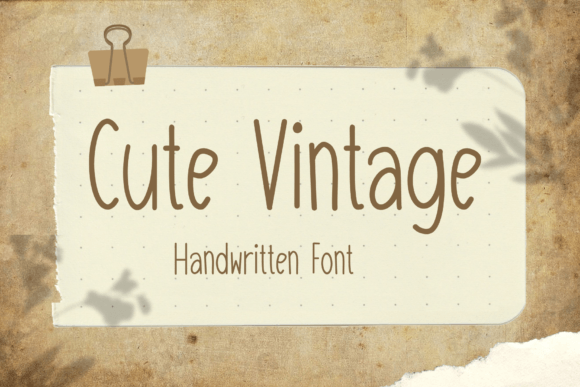
Cute Vintage Font: Adding a Touch of Whimsy to Your Designs
The Cute Vintage font is a delightful and charming handwritten display font that is perfect for adding a touch of sweetness and friendliness to your designs. This font is ideal for a wide range of creative projects, from crafts and digital design to presentations, wedding invitations, cards, and more. Its playful and fun style makes it an excellent choice for anyone looking to add a dash of whimsy to their work.
What is Cute Vintage Font?
Cute Vintage font is a carefully crafted handwritten display font that exudes a sense of nostalgia and playfulness. Its sweet and friendly style makes it perfect for designs that require a personal touch. The font features flowing lines, gentle curves, and a dash of elegance, making it suitable for a wide range of applications.
Key Features of Cute Vintage Font
- Handwritten style: Cute Vintage font boasts a beautiful handwritten style that is both elegant and playful.
- Sweet and friendly: The font’s sweet and friendly tone makes it perfect for designs that require a personal touch.
- Versatile: Cute Vintage font is highly versatile and can be used for a wide range of creative projects.
- Easy to read: The font is clear and easy to read, making it perfect for body text and headings.
Use Cases for Cute Vintage Font
Cute Vintage font is an incredibly versatile font that can be used for a wide range of creative projects. Here are some of the many use cases for this delightful font:
- Crafts: Cute Vintage font is perfect for craft projects, such as scrapbooking, card making, and DIY tutorials.
- Digital design: The font is ideal for digital designers who want to add a touch of whimsy to their work, such as social media graphics, blog posts, and website headers.
- Wedding invitations and cards: Cute Vintage font is a popular choice for wedding invitations, cards, and other stationery.
- Presentations: The font is perfect for presentations that require a touch of personality and whimsy.
- School projects: Cute Vintage font is an excellent choice for school projects, such as posters, presentations, and worksheets.
- Comic book style: The font’s playful style makes it perfect for comic book-style designs, such as graphic novels and cartoons.
- Game online: Cute Vintage font can be used to create engaging and playful online games.
- Love shirts: The font is ideal for designing love shirts, hoodies, and other apparel.
- Posters and movie titles: Cute Vintage font can be used to create eye-catching posters and movie titles.
Benefits of Using Cute Vintage Font
There are many benefits to using Cute Vintage font in your designs. Here are a few:
- Adds a touch of whimsy: Cute Vintage font adds a touch of whimsy and playfulness to your designs.
- Personal touch: The font’s handwritten style gives your designs a personal touch.
- Versatile: Cute Vintage font is highly versatile and can be used for a wide range of creative projects.
- Easy to read: The font is clear and easy to read, making it perfect for body text and headings.
Tips for Using Cute Vintage Font
Here are a few tips for using Cute Vintage font in your designs:
- Use it sparingly: Cute Vintage font is a display font, so use it sparingly to add emphasis and interest to your designs.
- Pair it with other fonts: The font pairs well with other fonts, such as sans-serif fonts and script fonts.
- Experiment with colors: Cute Vintage font looks great in a variety of colors, from bright and bold to soft and pastel.
Cute Vintage font is a delightful and charming handwritten display font that is perfect for adding a touch of whimsy to your designs. Its sweet and friendly style makes it ideal for a wide range of creative projects, from crafts and digital design to presentations, wedding invitations, cards, and more. With its versatility, ease of use, and playful style, Cute Vintage font is an excellent choice for anyone looking to add a dash of personality to their work.